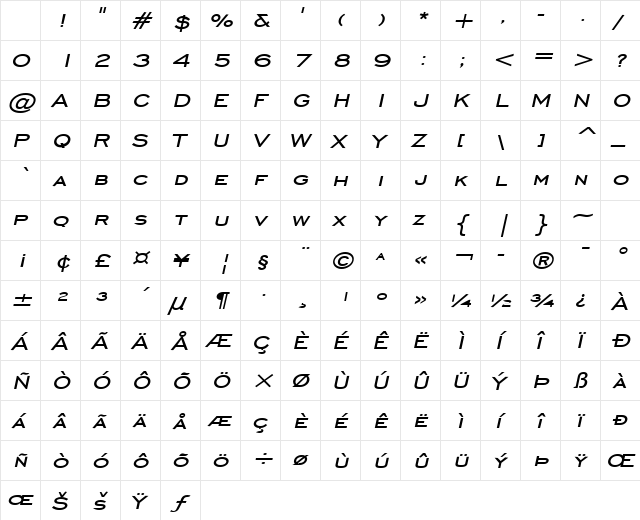
Chisel-Wide is a composed and adaptable typeface that performs quietly and consistently across a wide range of design contexts. The slanted form adds forward momentum and visual energy. Its bold stroke weight gives it real presence on the page.
Pro Tip: Use Chisel-Wide for emphasis, pull quotes, and subheadings where its slanted energy can add rhythm to the layout.